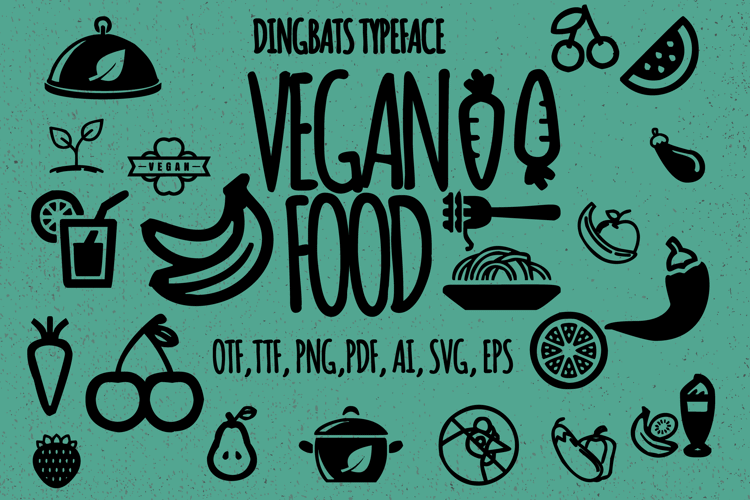
VEGAN Font
๐จ Font Name: Vegan by Minimalist Art Studio
๐จ Font Description: Vegan Food Dingbats is a silhouette-style dingbat font featuring fruits, veggies, and kitchen iconsโperfect for eco branding, recipe cards, and food packaging.